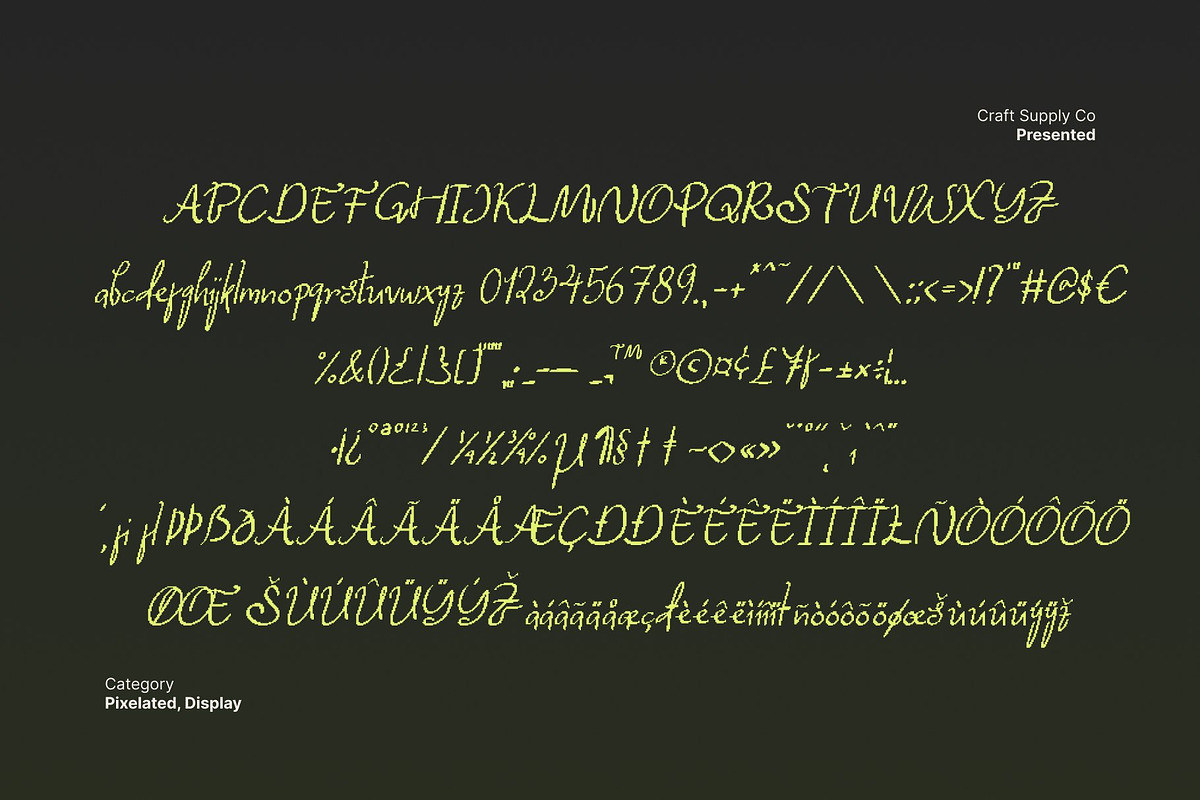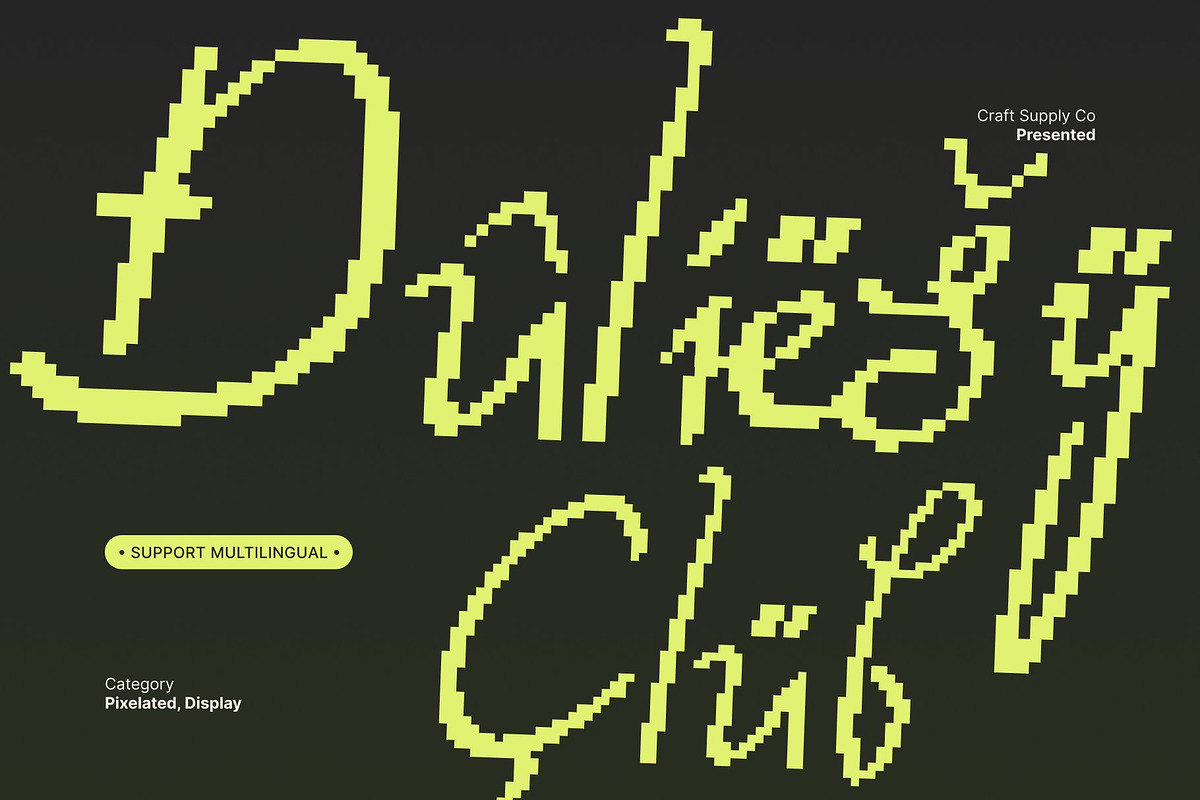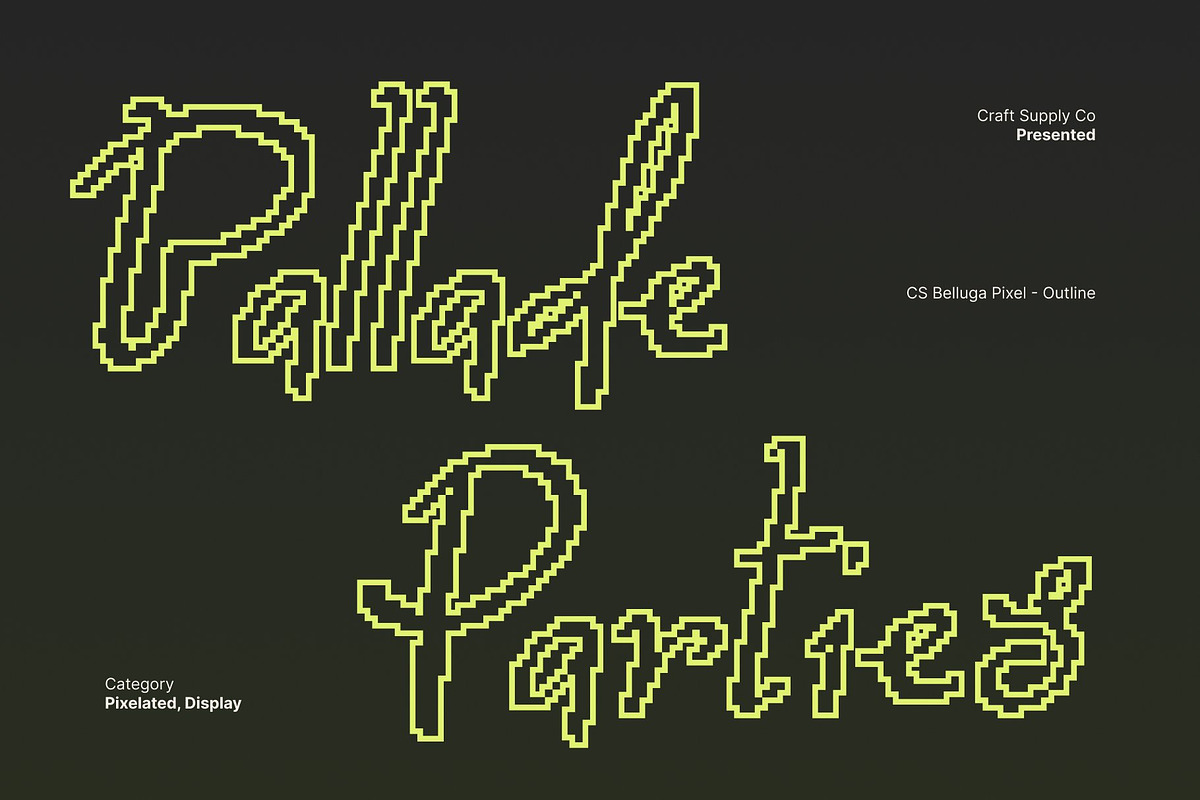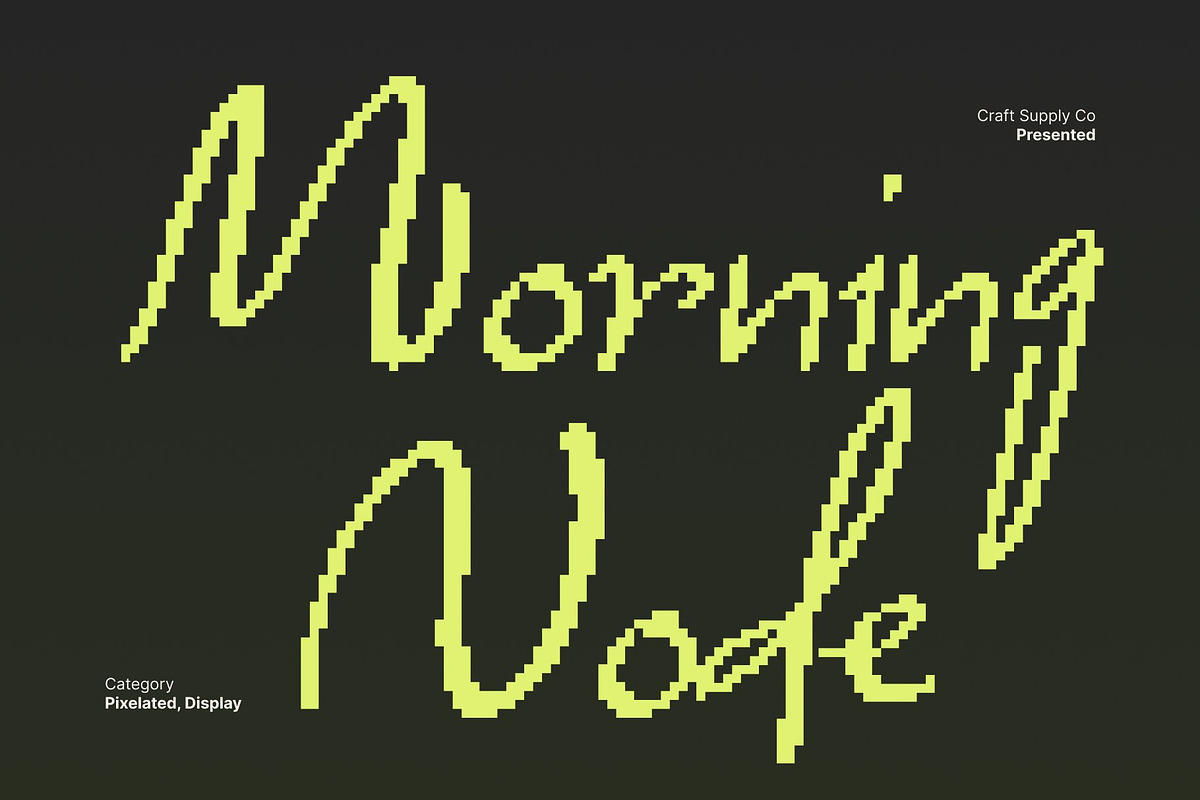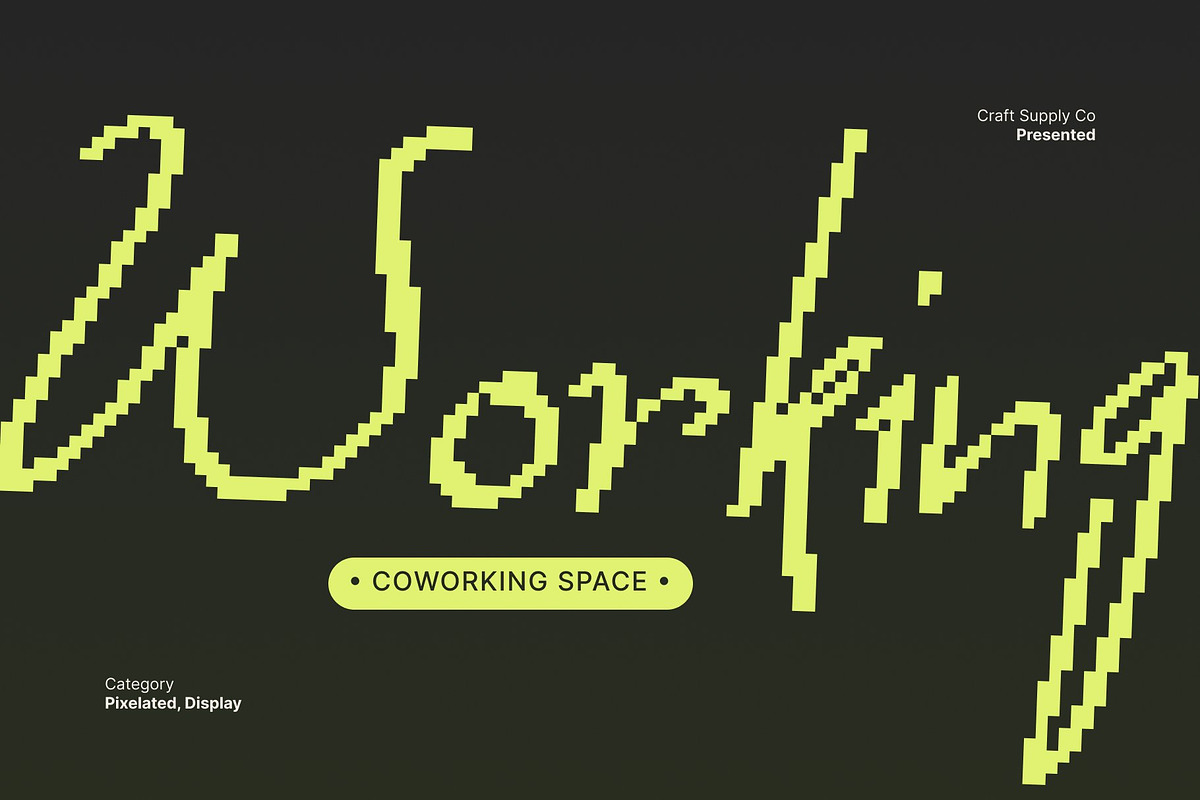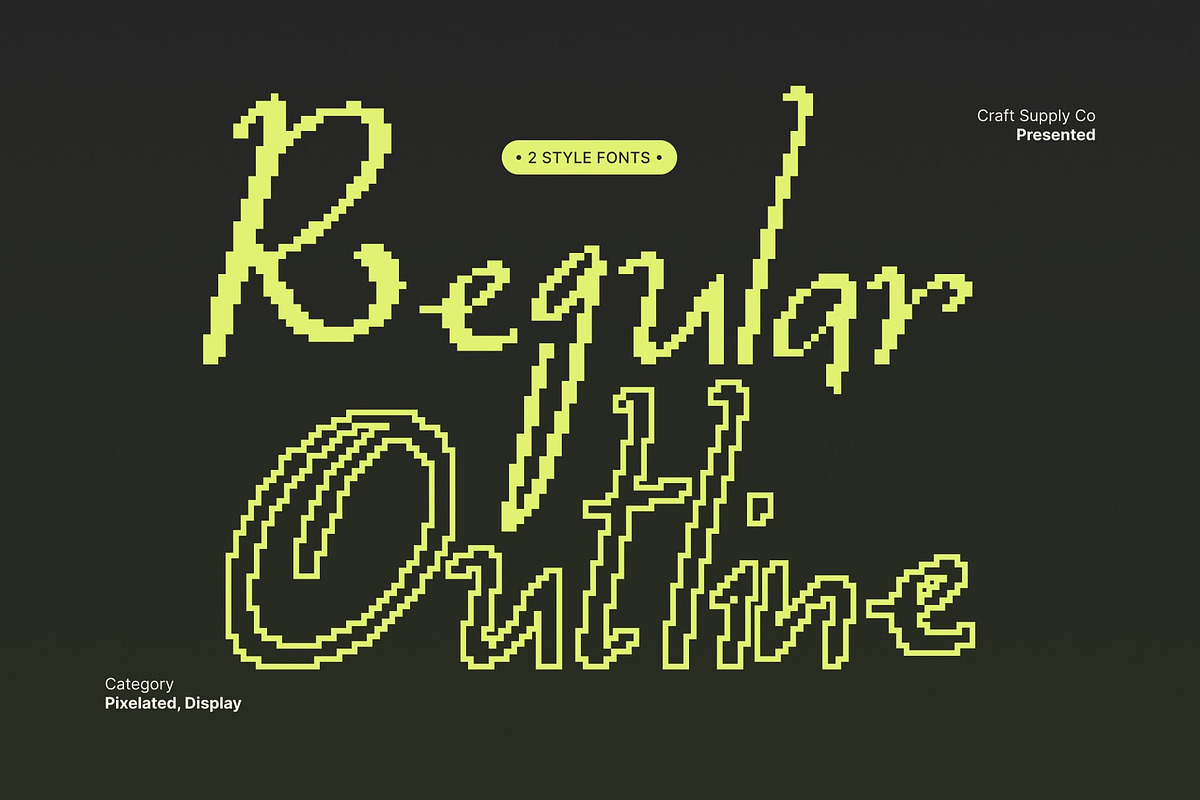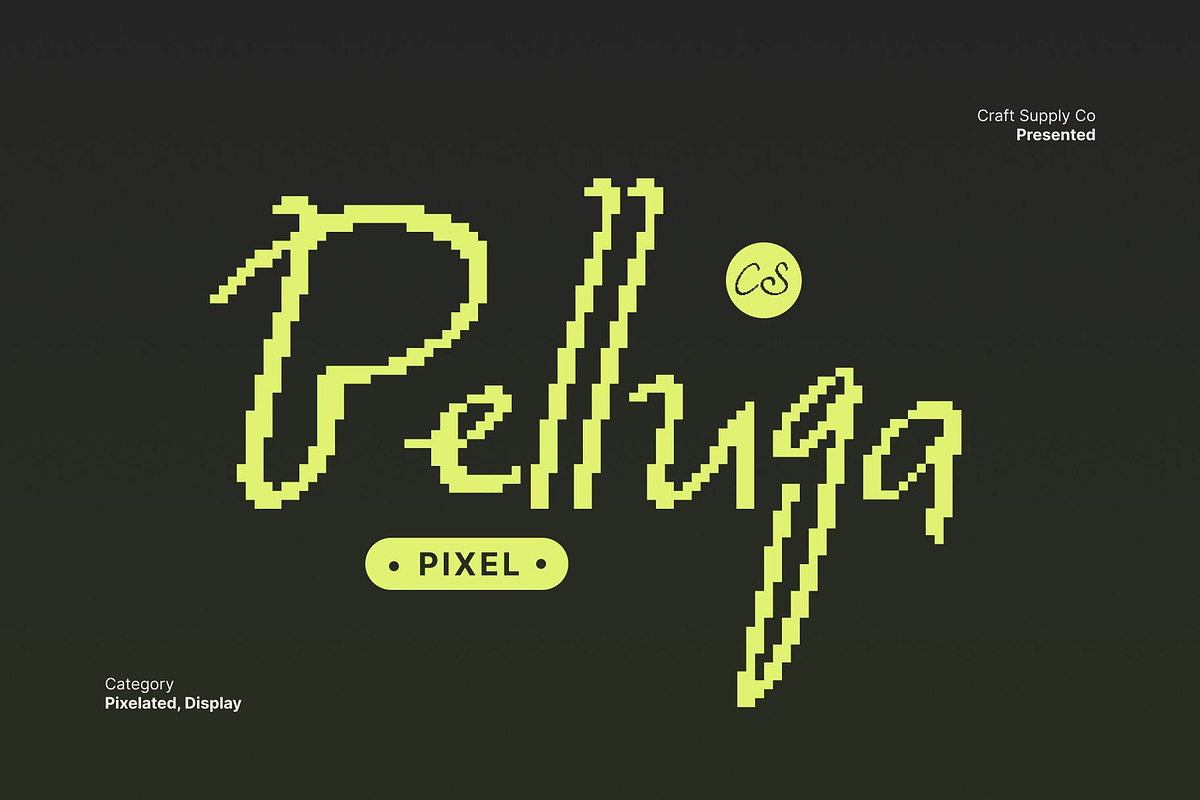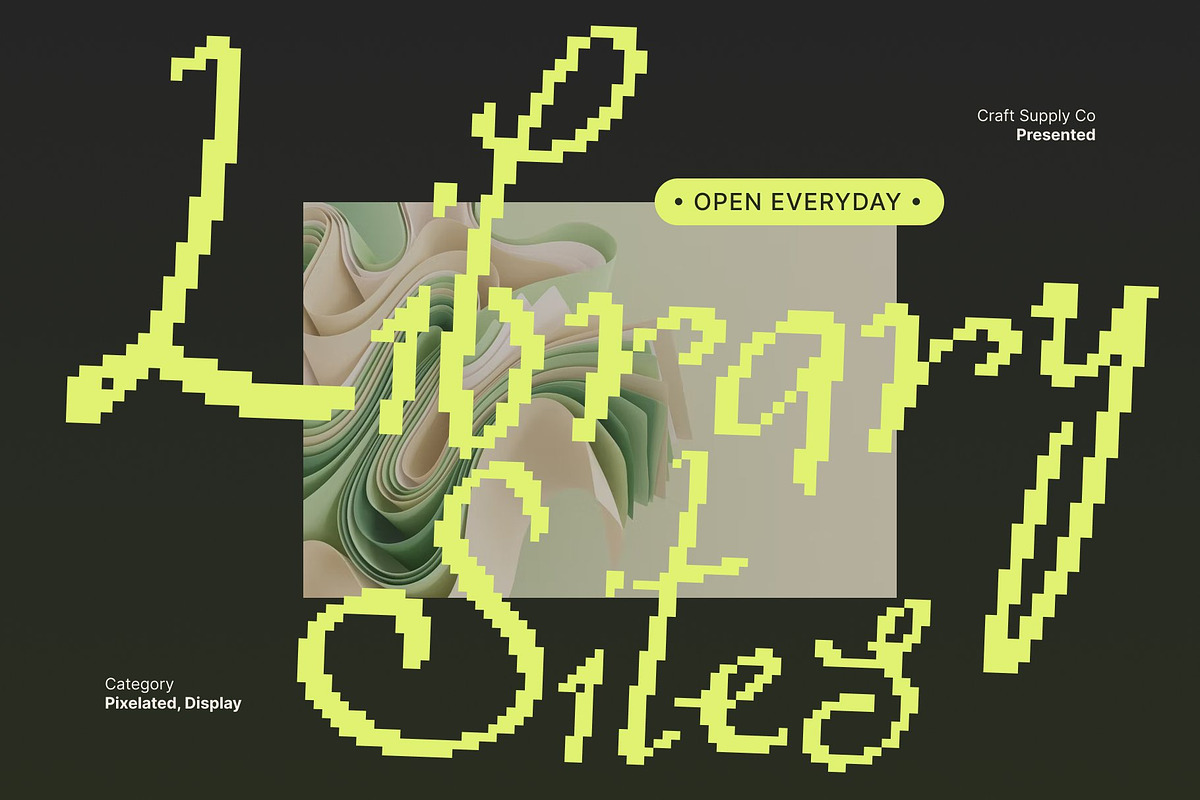
CS Belluga Pixel
CS Belluga Pixel: Where Playfulness Meets Digital Artistry
Fantasy Display Font with Pixel Aesthetic This is a display font infused with fantasy charm and playful digital detail, designed to bring imagination and creativity to life. Its pixelated texture adds a nostalgic, video game inspired flair, making every letter feel alive with personality and rhythm.
Energetic and Whimsical Design This font captures the spirit of fun and adventure, blending handcrafted creativity with a digital, blocky aesthetic. The unique pixel styling adds visual rhythm and vibrancy, perfect for projects that need an expressive, energetic, and artistic touch.
Perfect for Artistic and Digital Branding This font shines in artistic branding, digital visuals, and modern poster design. Whether for music covers, gaming projects, or creative campaigns, its distinctive style ensures your work stands out with a bold, whimsical edge that grabs attention.
Versatile for Creative Expression Designed to balance nostalgia and modernity, this font adapts seamlessly across various design needs. From digital art pieces to playful logos, it delivers a unique blend of fantasy, expression, and modern pixel aesthetics, making it a must-have for designers who love imaginative typography.